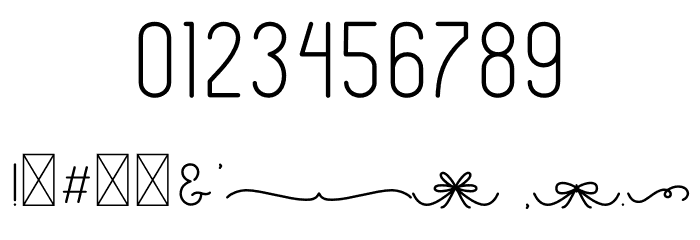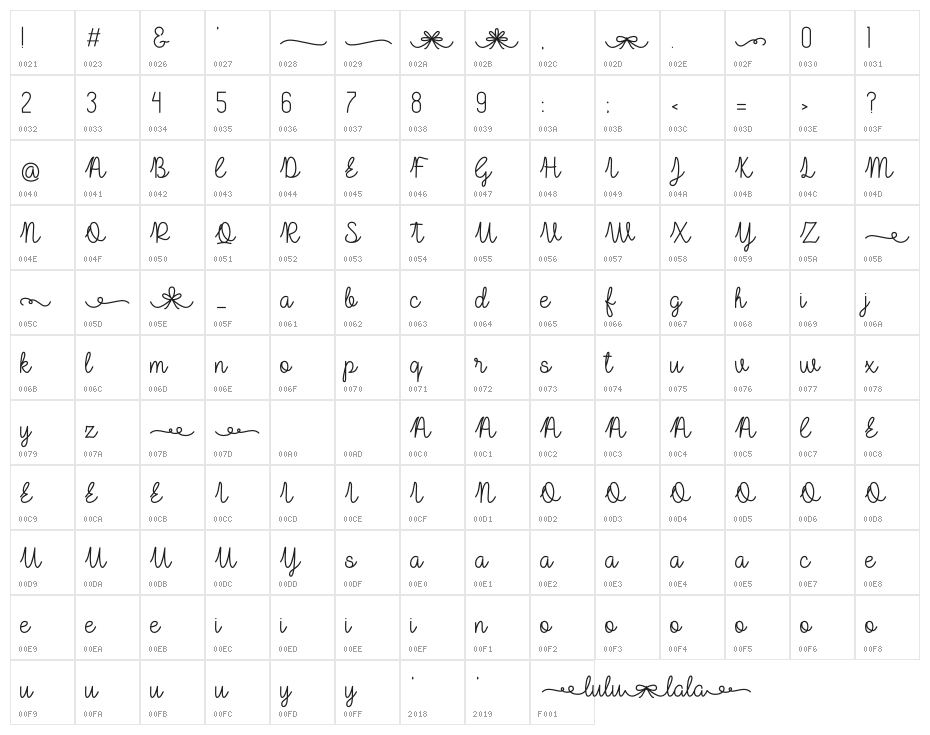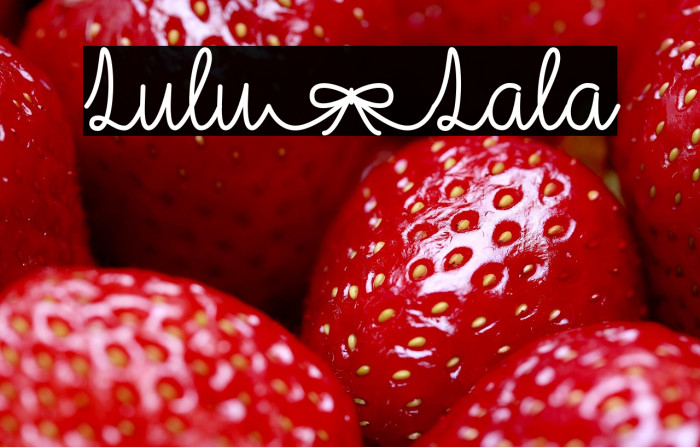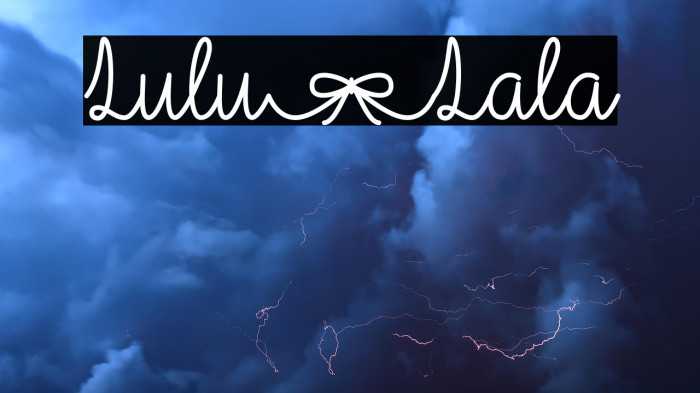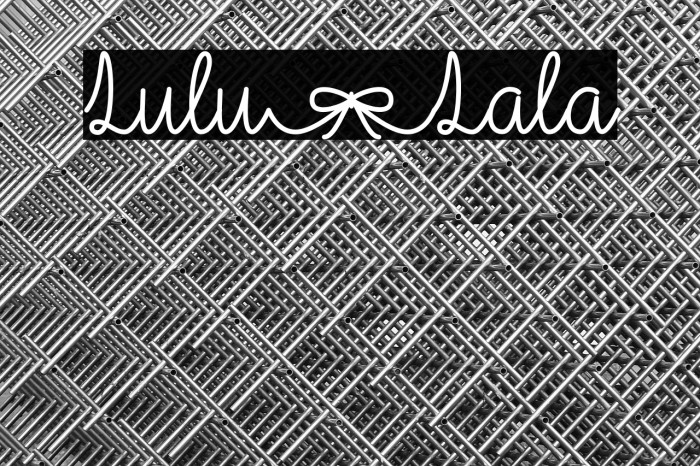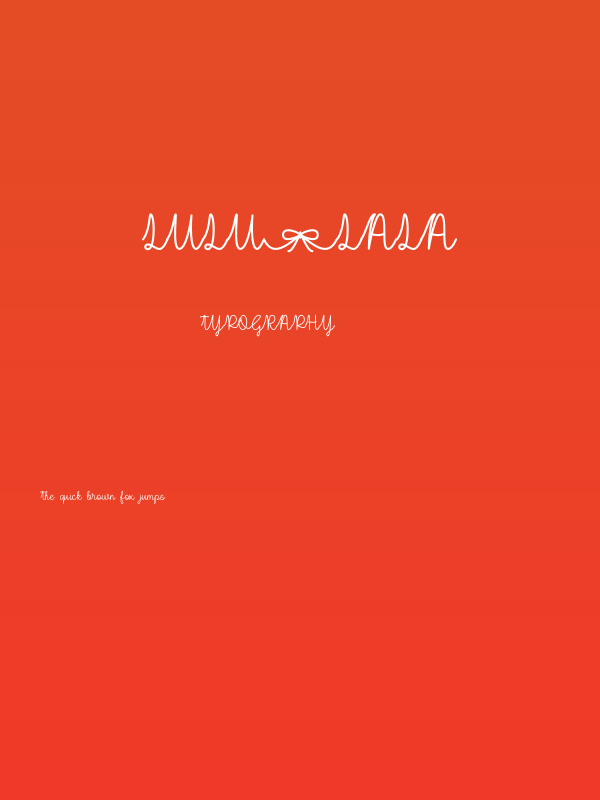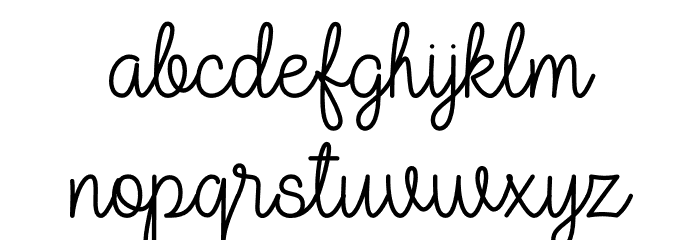
Lulu-Lala Font
Lulu-Lala Description
This font features a playful and whimsical script style, characterized by its flowing, connected letters that mimic a handwritten aesthetic. The uppercase letters are tall and elegant, with a slight slant that adds to the casual feel. The lowercase letters maintain a consistent flow, enhancing readability while retaining a charming, personal touch. Numbers are clear and straightforward, complementing the overall style. Special characters are creatively designed, adding a decorative flair that can enhance various design projects. The font's unique style makes it suitable for creative and informal applications.
Use CaseLogos, Invitations, Greeting cards
Proposed ProjectsIdeal for greeting cards, invitations, personal branding, and creative projects that require a personal touch.